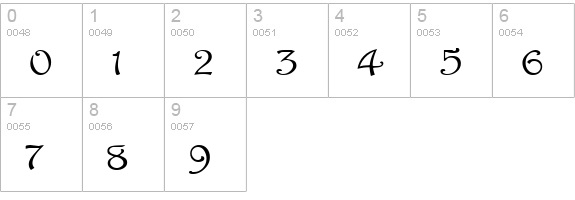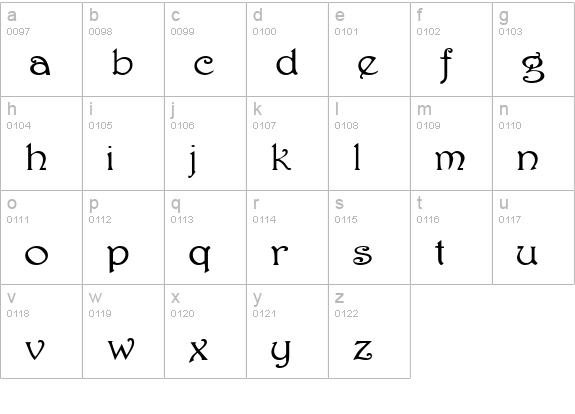
ParisianExtended Normal Font Details
ParisianExtended Normal is the standard, neutral variant in the ParisianExtended typeface family \xE2\x80\x94 well suited to general body text, paragraphs, and standard typographic work.
ParisianExtended Normal font is a stunning display font that embodies the elegance and sophistication of the Parisian lifestyle. With its elongated and refined letterforms, this font exudes an air of timeless charm and refinement. The ParisianExtended Normal font is perfect for adding a touch of class to any design project. Whether you're creating invitations, logos, or advertisements, this font will elevate your work to new heights. Its clean and legible letterforms make it suitable for both small and large sizes, ensuring that your message is always clear and impactful. What makes the ParisianExtended Normal font even more appealing is that it is freely available to download at FontsMarket.com. This means that you can effortlessly add a touch of Parisian elegance to your designs without any cost. Whether you're a professional designer or a hobbyist, this font is a valuable addition to your typographic arsenal. So, why wait? Download the ParisianExtended Normal font today and let its refined beauty bring a touch of Parisian charm to your designs. With its exquisite design and the fact that it is free to download, this font is truly a must-have for anyone looking to create sophisticated and visually stunning designs.